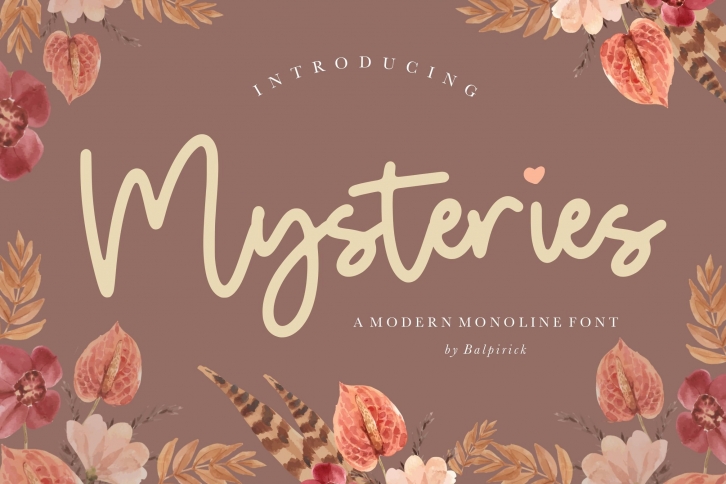
Mysteries Modern Monoline is a trendy and unique font with an authentic style. It was designed by Balpirick and it's a great choice for creative people who need such a font. It was released on November 20, 2020 and the file size is 13.36 MB. Mysteries Modern Monoline will add an organic vibe to any design idea!